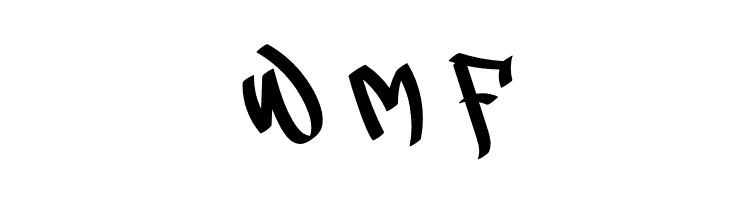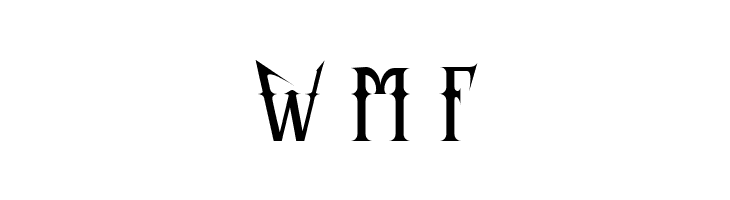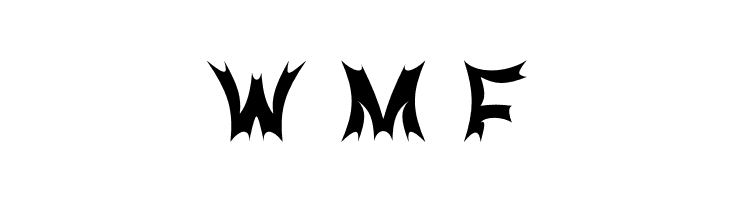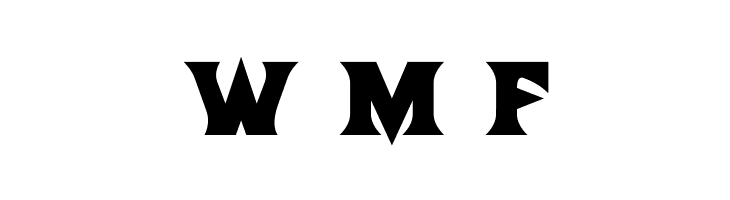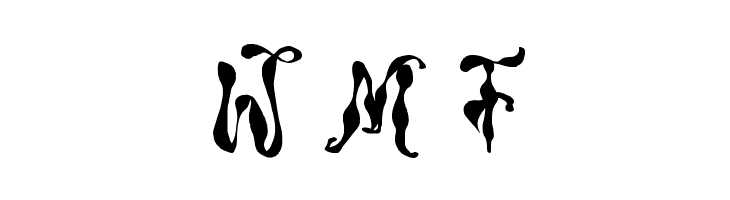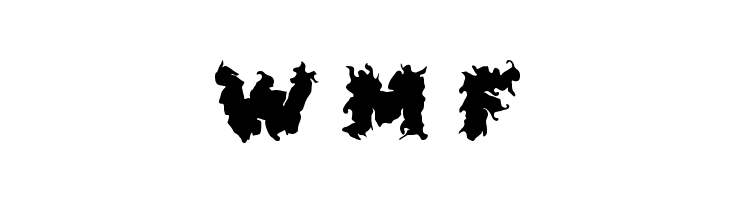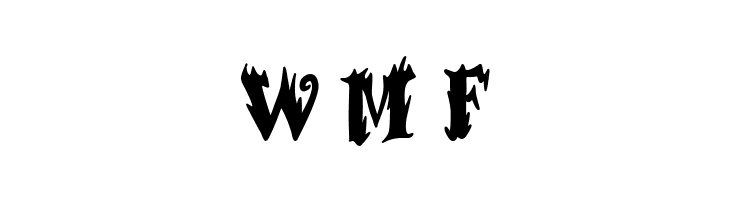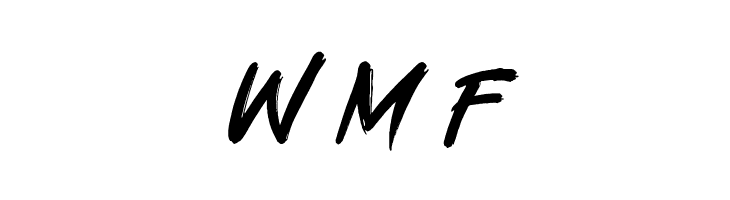
A bold, graffiti-inspired font with angular strokes and dynamic energy.
A dramatic, Gothic-inspired font with sharp, angular lines and intricate detailing.
A bold, angular font with a dynamic and edgy style.
A bold, edgy font with sharp, angular elements and high contrast.
A bold, jagged font with sharp, angular edges and a dramatic, intense style.
A bold, gothic-style font with sharp serifs and dramatic flair.
An intricate, gothic-style font with dramatic flourishes and sharp edges.
A bold, chaotic decorative font with jagged, swirling shapes.
A bold, flame-inspired font with dramatic, pointed serifs and intense visual impact.
A bold, brush-stroke font with dynamic and energetic styling.